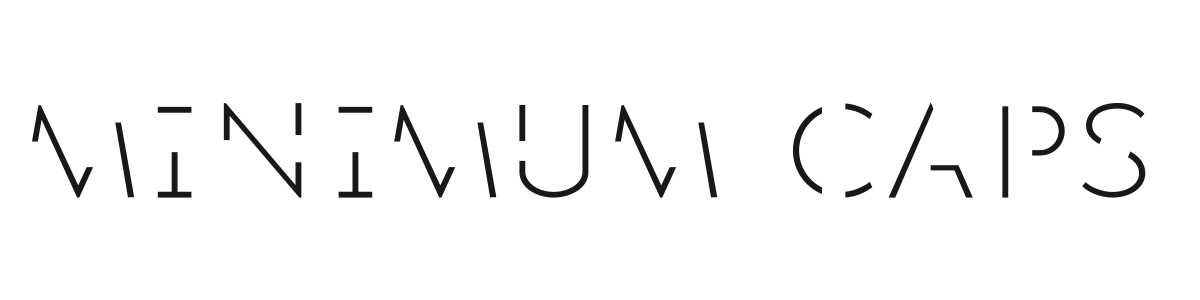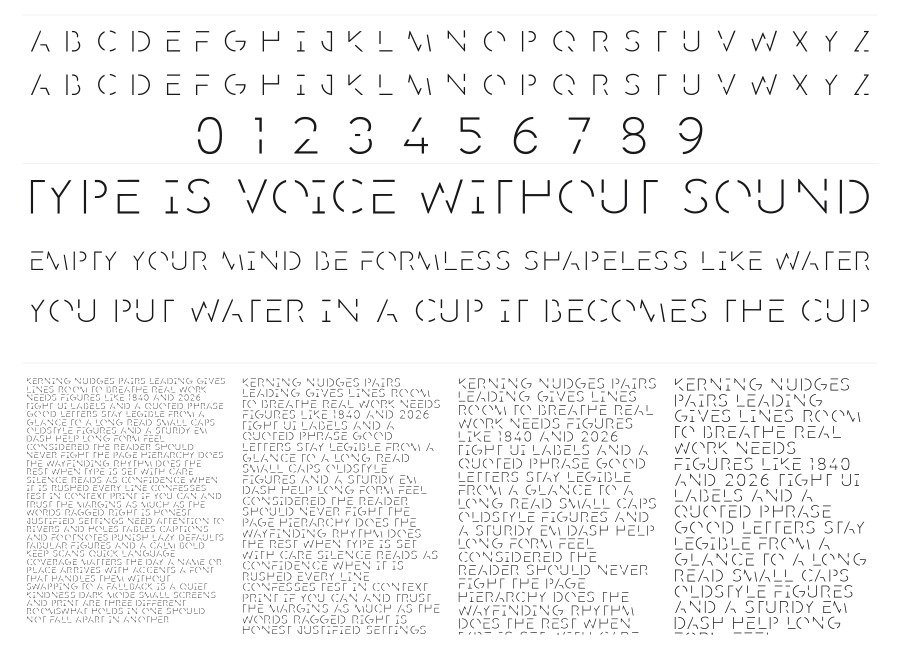
Minimum Caps
Minimum Caps is a hairline geometric sans built around interrupted strokes, with deliberate gaps at joints that give each character a fragmented, blueprint-like quality. The ultralight weight and near-zero stroke contrast push it toward the extreme of minimal restraint. It works at large sizes where those gaps read clearly as a design choice rather than a flaw.